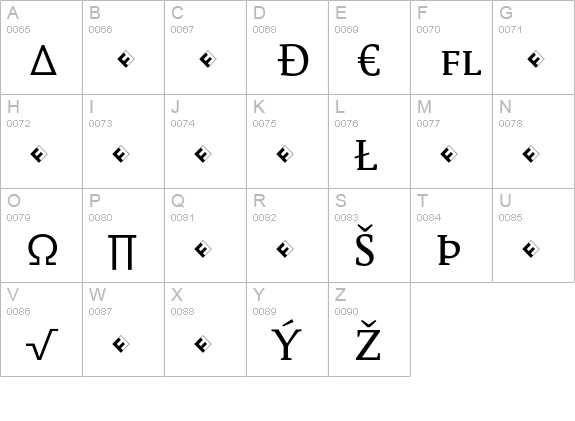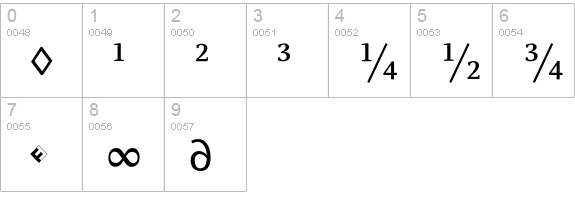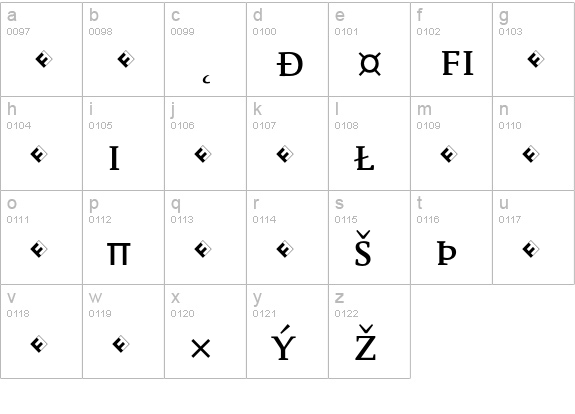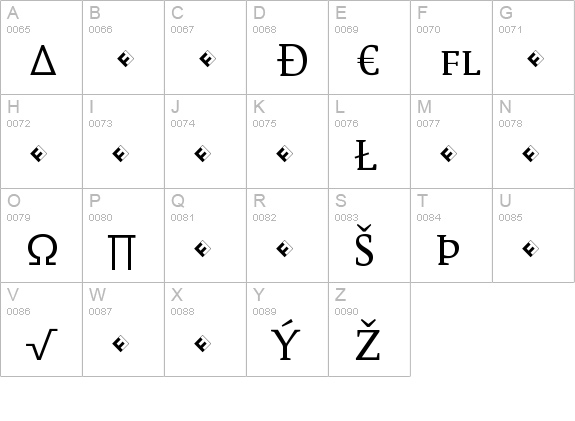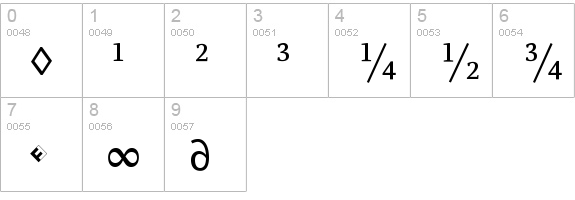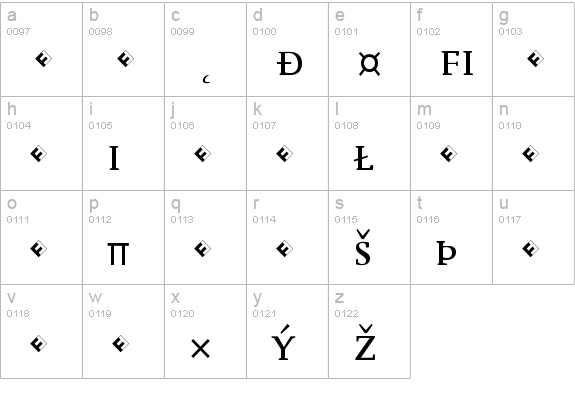
Parable-RegularSCExpert Font Details
Parable-RegularSCExpert font is a captivating and versatile typeface that effortlessly combines elegance with modernity. Its clean and sleek design makes it suitable for a wide range of design projects, from professional documents to creative branding. With its distinctive and well-balanced letterforms, Parable-RegularSCExpert font adds a touch of sophistication to any text. The font's slender and elongated characters create a sense of grace and refinement, making it perfect for invitations, wedding stationery, and high-end fashion magazines. What sets Parable-RegularSCExpert font apart is its versatility. It can be used for both headings and body text, ensuring consistency and coherence throughout your design. Whether you're looking for a font that conveys professionalism or one that exudes creativity, Parable-RegularSCExpert font is the perfect choice. And the best part? Parable-RegularSCExpert font is free! You can easily download it at FontsMarket.com, where it is readily available for immediate use. This means that you can add this stunning font to your collection without any cost, making it an excellent choice for designers on a budget. Don't miss out on the opportunity to enhance your designs with the elegance and versatility of Parable-RegularSCExpert font. Download it today at FontsMarket.com and elevate your projects to new heights of sophistication and style.